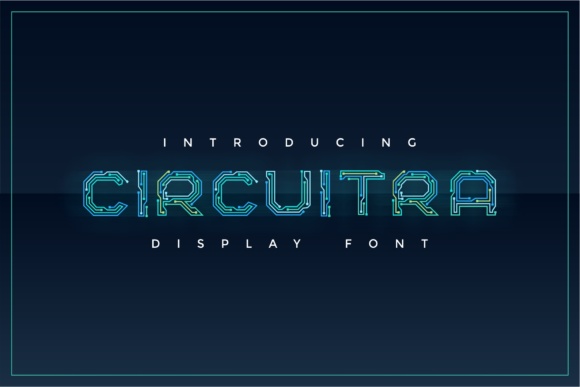
Circuitra Font: A Cutting-Edge Display Font for Modern Designers and Crafters
In the world of design, fonts play a crucial role in conveying messages, expressing creativity, and setting the tone for a project. With the rise of electronic and technological themes in design, a font that embodies the essence of circuit components and electronic objects is a valuable addition to any designer’s toolkit. Introducing Circuitra Font, a display color font that draws inspiration from the intricate world of electronics. In this article, we’ll explore the features, benefits, and uses of Circuitra Font, as well as provide guidance on how to work with this innovative font.
What is Circuitra Font?
Circuitra Font is a display color font that takes its cues from the complex and fascinating world of circuit components. This technology-inspired font is designed to add a touch of modernity and innovation to a wide range of projects, from graphic design and branding to crafting and DIY endeavors. With its unique and futuristic aesthetic, Circuitra Font is perfect for designers and crafters looking to add an edge to their work.
Key Features of Circuitra Font
- Display Color Font: Circuitra Font is a color font, which means it can display a range of vibrant colors and gradients, adding depth and dimension to your designs.
- Inspired by Circuit Components: The font’s design is inspired by circuit components, giving it a unique and technological feel.
- Unique Aesthetic: The font’s futuristic and technological design adds a fresh and modern touch to any project.
- Versatility: Circuitra Font can be used in a wide range of projects, from graphic design and branding to crafting and DIY endeavors.
Project Ideas for Circuitra Font
Circuitra Font is a versatile font that can be used in a wide range of projects, including:
- Graphic Design: Use Circuitra Font to add a modern touch to your graphic design projects, such as logos, brochures, and posters.
- Branding: Create a unique and memorable brand identity with Circuitra Font.
- Crafting and DIY: Add a technological edge to your crafting and DIY projects, such as signs, cards, and decorations.
Circuitra Font is a cutting-edge display color font that offers a unique and futuristic aesthetic, perfect for designers and crafters looking to add an edge to their work. With its compatibility with popular design software and versatility in a wide range of projects, Circuitra Font is an excellent addition to any design toolkit. By following our guidelines and tips, you can unlock the full potential of Circuitra Font and take your designs to the next level.